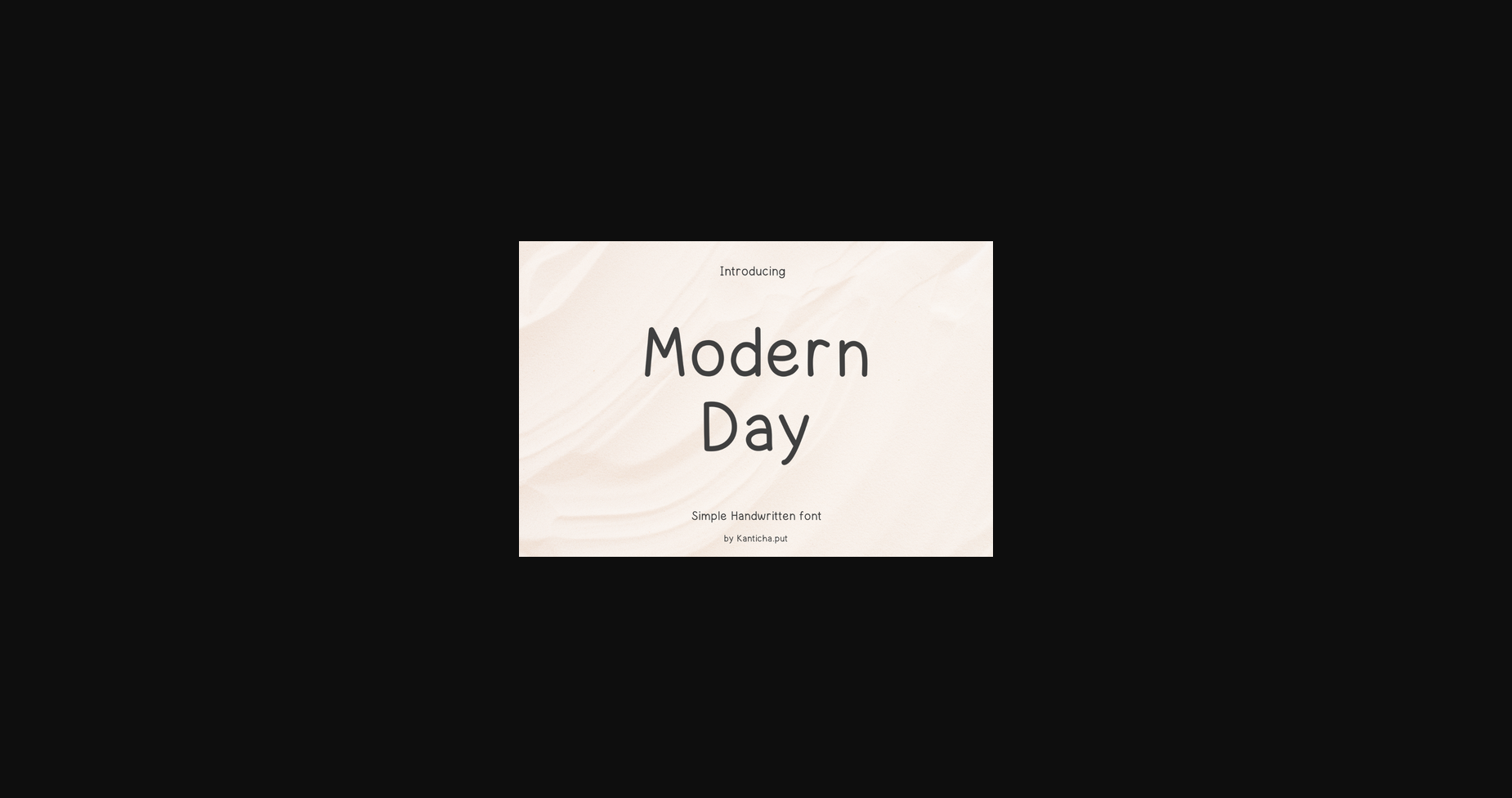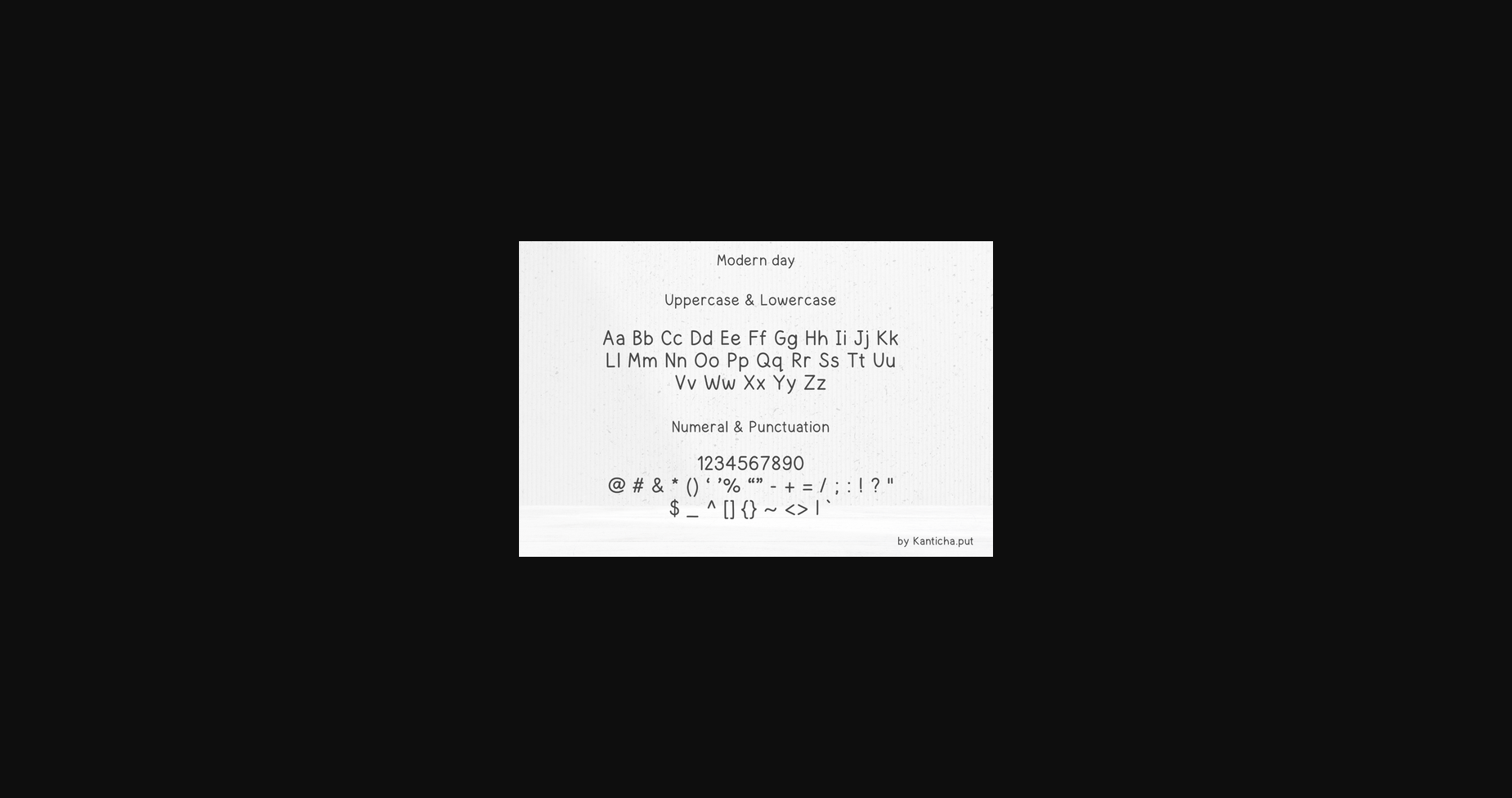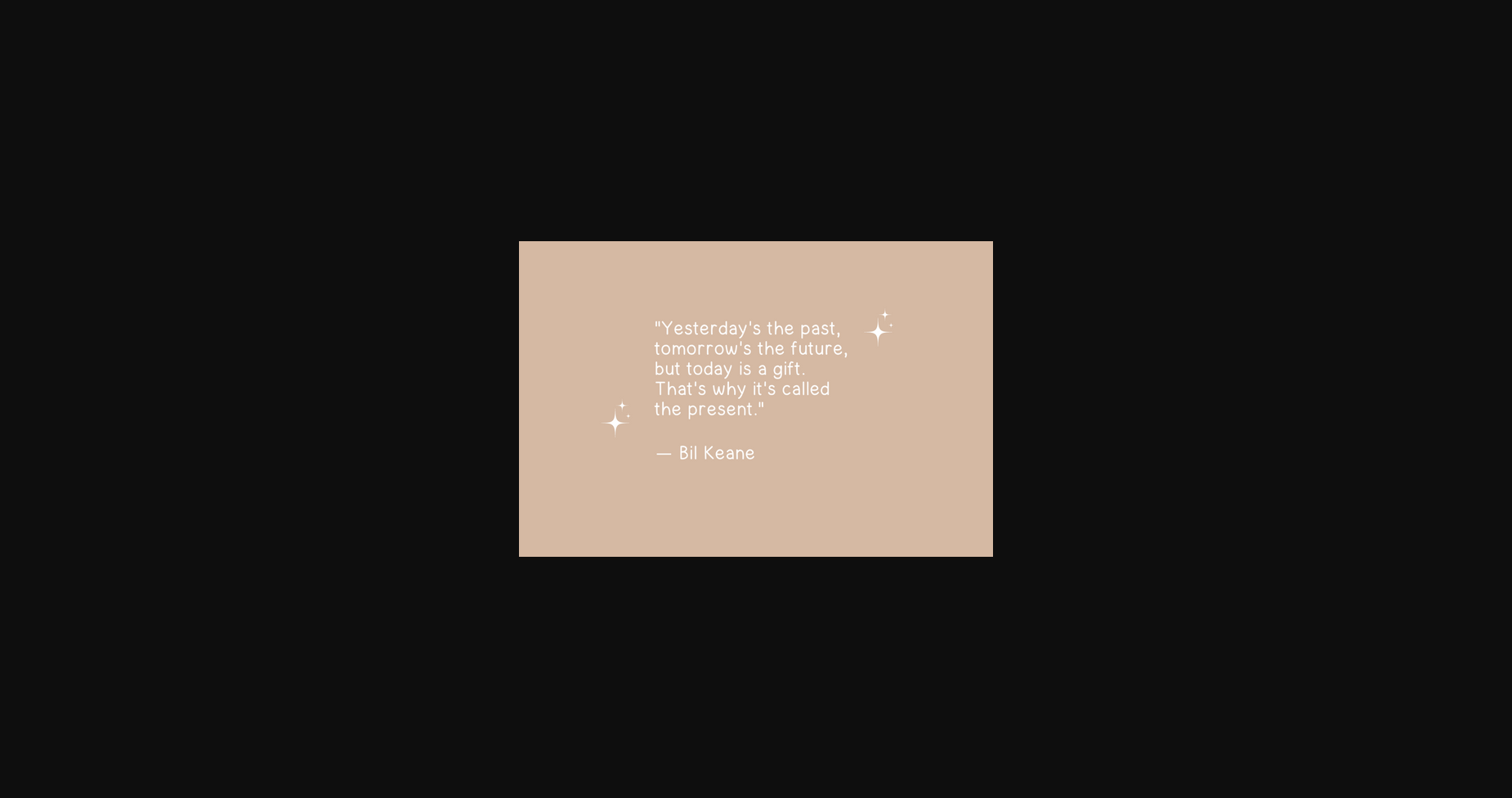
About Modern Day Font
Modern Day is a simple and neat sans-serif font with a round and minimalistic shape. Its clean and contemporary design is a great choice for any project.